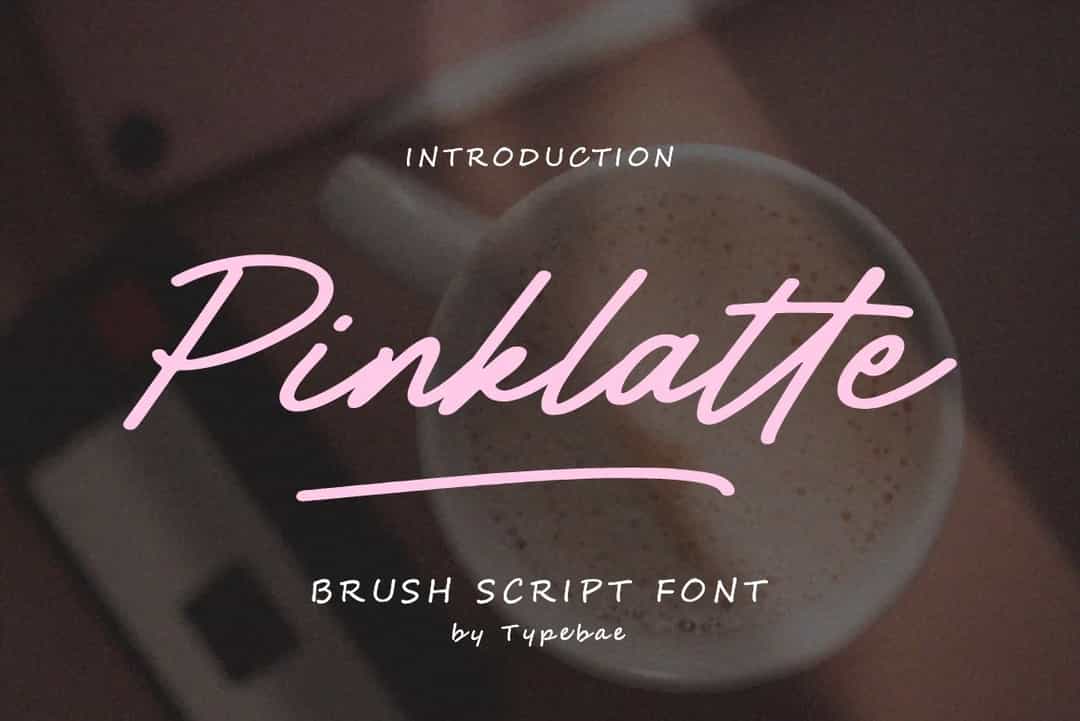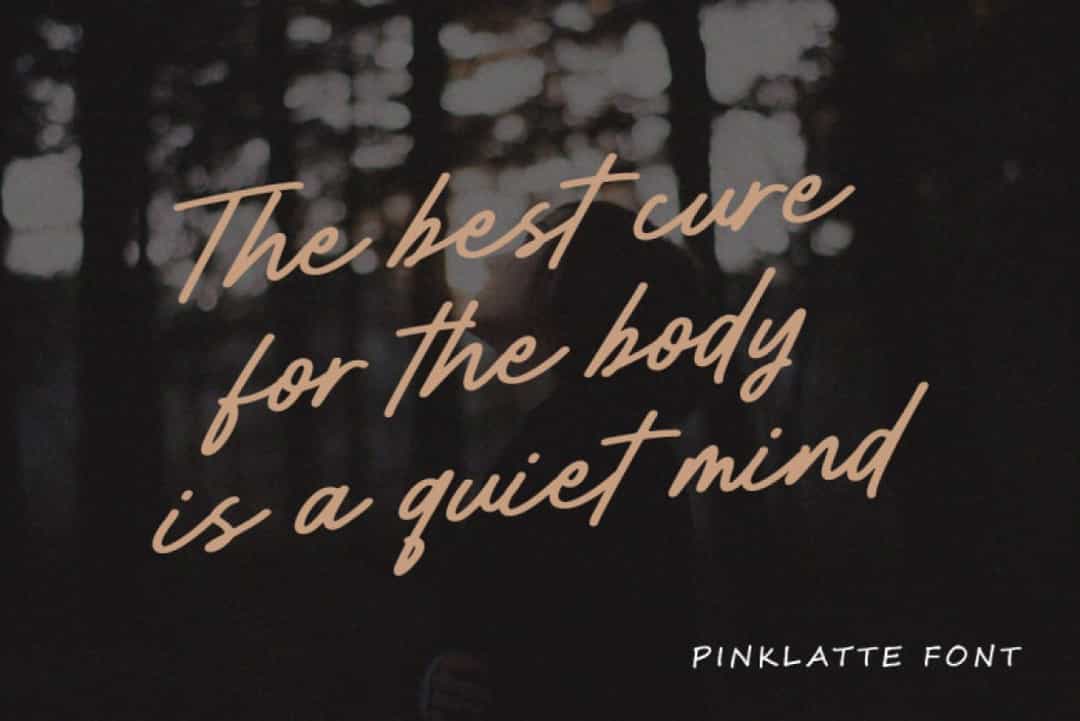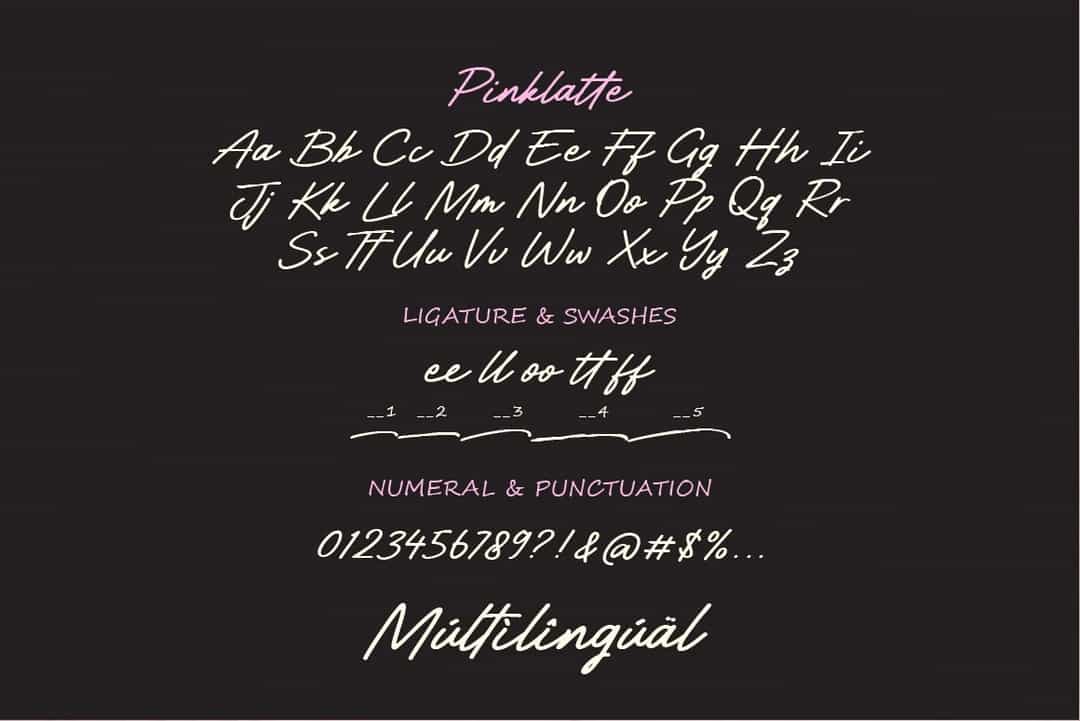
Discover Pinklatte Font, part of the Brush Handwritten collection—a versatile and unique font perfect for adding a personal touch to your projects. Download it for free and enjoy crafting designs with style, from invitations to social media posts. This font is available exclusively for personal use, giving you the freedom to create without limits. Unlock your creativity with Pinklatte Font today!
Pinklatte Font, with its captivating handwritten brush script font and playful elegance, adds an appealing element to any design project – posters, invitations or branding projects alike can use this font for posters that exude fun-loving elegance! Pinklatte font adds its distinctive and elegant style and captures creativity in its handwritten form.